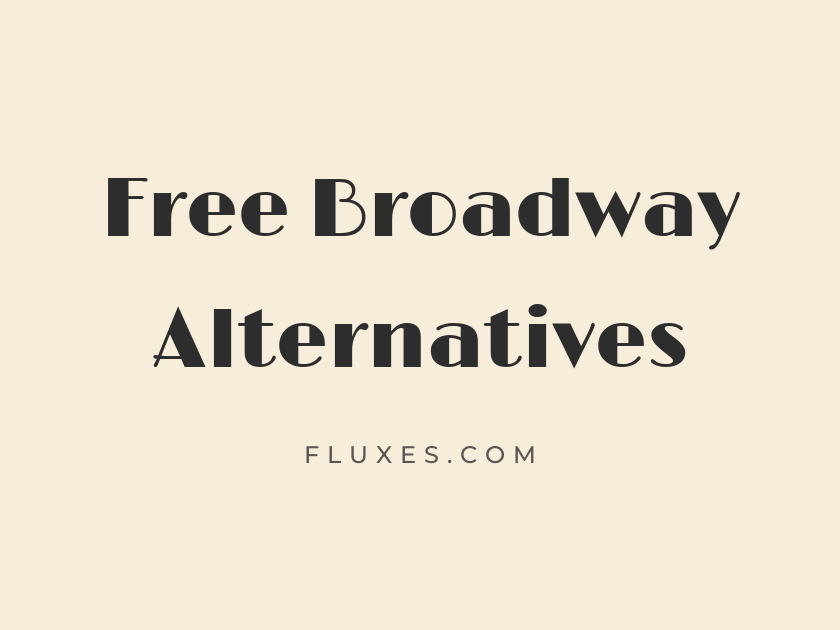
15 Best Free Fonts Alternatives to Broadway
Broadway has that unmistakable 1920s marquee energy: thick verticals, delicate hairline shading, and a swagger that belongs on a vaudeville poster or a jazz age playbill. Because it is a licensed classic rather than a free download, designers looking to capture that same theatrical, Art Deco spirit for free often turn to Google Fonts for display faces with the same period charm, geometric bones, or showbiz confidence. Some of the options here lean closer to the original’s ornate detailing, while others simply borrow its bold, spotlight-ready attitude.
1. Limelight
Limelight
Of everything on this list, Limelight comes closest to channeling Broadway’s actual marquee spirit. Its rounded, slightly theatrical letterforms look like they were pulled straight off a 1930s cinema sign, which makes it the obvious first stop for anyone chasing that exact mood in a free font.
2. Fascinate
Fascinate is a genuine Art Deco display face, built from the same geometric logic that shaped Broadway and its contemporaries. The letters feel carved rather than drawn, with angular joins that give headlines a stagey, gilded-poster quality.
3. Fascinate Inline
Fascinate Inline
This is the outlined companion to Fascinate, and it earns its own place because it opens up so much design flexibility. Use it layered over a solid color or paired with its filled sibling for a two-tone marquee effect that reads as pure vintage theater signage.
4. Monoton
Monoton trades hairline elegance for pure spectacle. Its overlapping strokes were built to mimic neon tube lettering, so it works best at large sizes on posters, title cards, or anywhere you want the glow of an old cinema sign rather than subtlety; at small sizes it turns to visual noise fast.
5. Cinzel Decorative
Cinzel Decorative carries a carved, monumental quality borrowed from Roman inscriptions, then dresses it up with flourished serifs that feel right at home on a gala invitation or a period drama’s title sequence. It reads as more classical than Art Deco, but the ornamentation gives it the same sense of occasion Broadway trades on.
6. Poiret One
Where Broadway is heavy and declarative, Poiret One is its featherweight cousin. This is a genuine 1920s geometric sans, all thin uniform strokes and perfect circles, and it suits refined invitations, fashion branding, or any headline that wants deco glamour without the shout.
7. Rozha One
Rozha One is a display serif with unexpected drama in its contrast, thick shoulders tapering into fine hairlines that catch the eye in a title or pull quote. It has more literary weight than most fonts here, so it pairs nicely with editorial layouts covering theater history or film retrospectives.
8. Abril Fatface
Abril Fatface brings the same exaggerated thick-thin contrast that made Broadway famous, just filtered through a more classical didone structure. It is a dependable choice for oversized headlines and magazine mastheads, and it stays legible even where Broadway itself starts to feel fussy.
9. Ultra
Ultra is blunt, heavy, and unapologetically vintage, the kind of slab that looks lifted from an old circus handbill. It has none of Broadway’s delicate shading, but it shares the same appetite for attention, making it a solid pick when you want bold poster typography over period accuracy.
10. Alfa Slab One
This one is built for impact rather than nuance. Alfa Slab One’s chunky, rounded slabs hold up beautifully at billboard scale, though it can feel a little blunt in longer headlines, so it earns its keep in short, punchy show titles and ticket badges.
11. Bungee
Bungee was designed with urban signage in mind, and that same bold, geometric confidence translates well to theater branding. It has a more contemporary, street-sign energy than Broadway’s soft Art Deco curves, which makes it a good option for a modern revival poster rather than a period-accurate one.
12. Vast Shadow
Vast Shadow bakes a drop shadow directly into its letterforms, giving it a dimensional, hand-painted quality reminiscent of old vaudeville bills. It is inherently a display-only font, so keep it to titles and short phrases rather than body copy.
13. Rye
Rye leans more Old West than Art Deco, but its thick-thin construction and decorative serifs give it the same vintage showmanship that Broadway carries. It suits playbills for period pieces, western-themed productions, or anything wanting a slightly rowdier, saloon-door charm.
Test any of the heavier options, like Ultra or Alfa Slab One, at your actual target size before committing; some designs that look bold at 72px can feel clumsy shrunk down to a subheading.
Broadway’s swagger is hard to replicate exactly, but between the deco geometry of Fascinate, the marquee glow of Limelight, and the dramatic contrast of Abril Fatface, there is enough range here to bring genuine vintage theatrical character to a project without spending a cent.